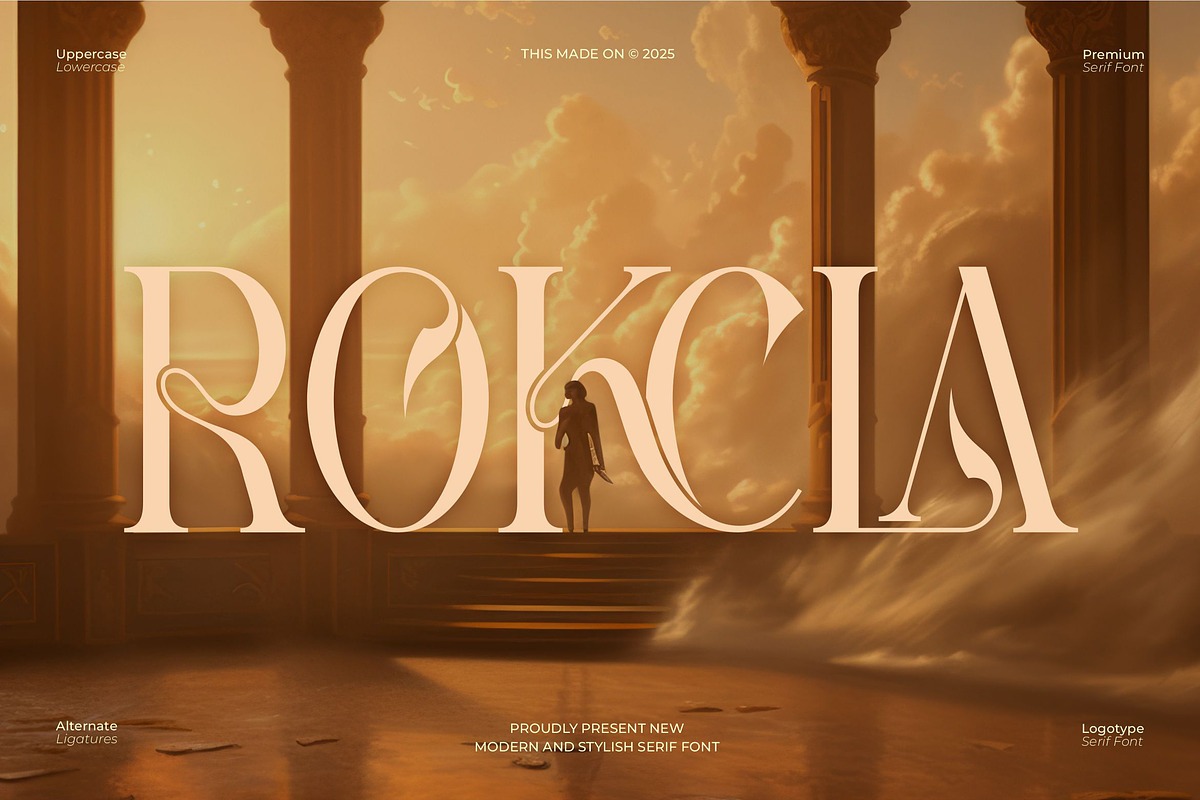
Rokcla Font
Rokcla Font is a versatile font designed to adapt beautifully across different design styles, offering dependable readability and balance. Rokcla Serif is a vintage and retro font type for all branding and logo designs. This vintage and retro Serif font has a beautiful character. This font is suitable for invitation card designs, cool logos, movie titles, movie names, business cards, book titles, brand names, and various other designs. Rokcla Serif is a smooth serif font that exudes sophistication and the moment. Its stylish ligatures make this font a perfect partner for any project.